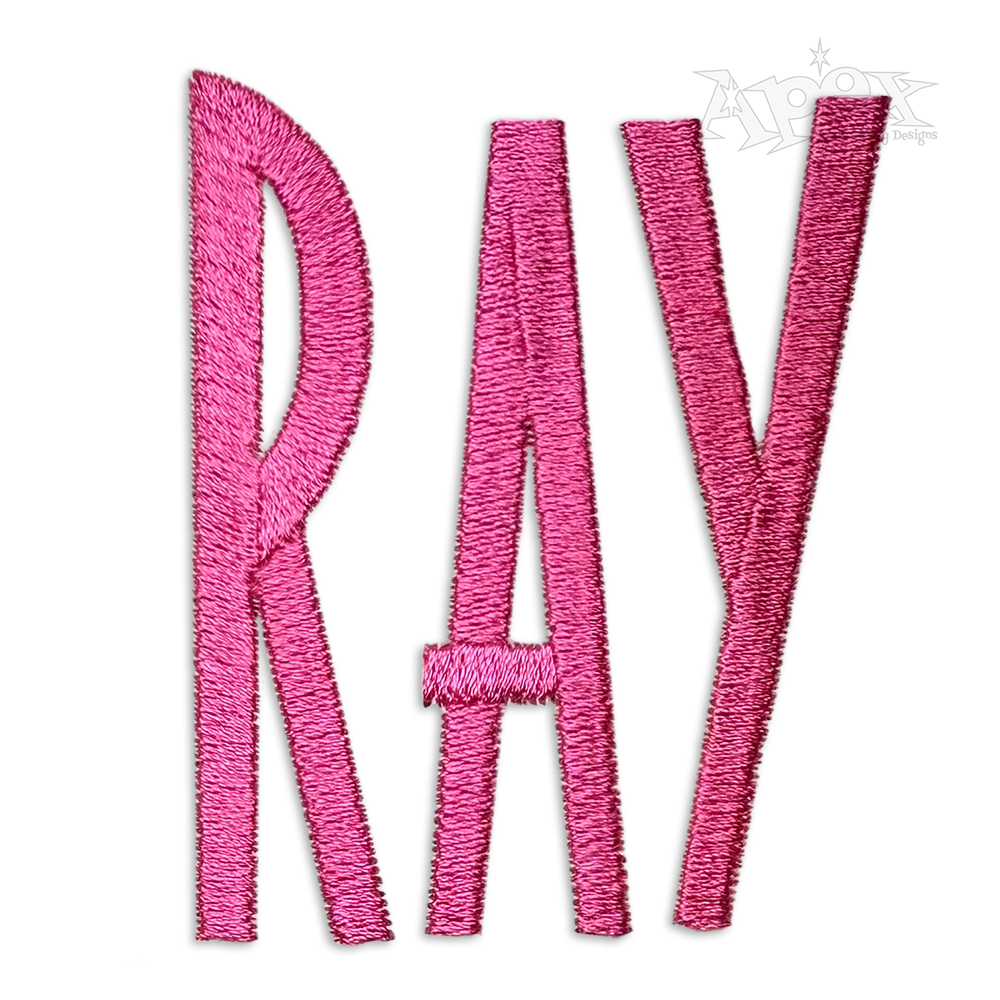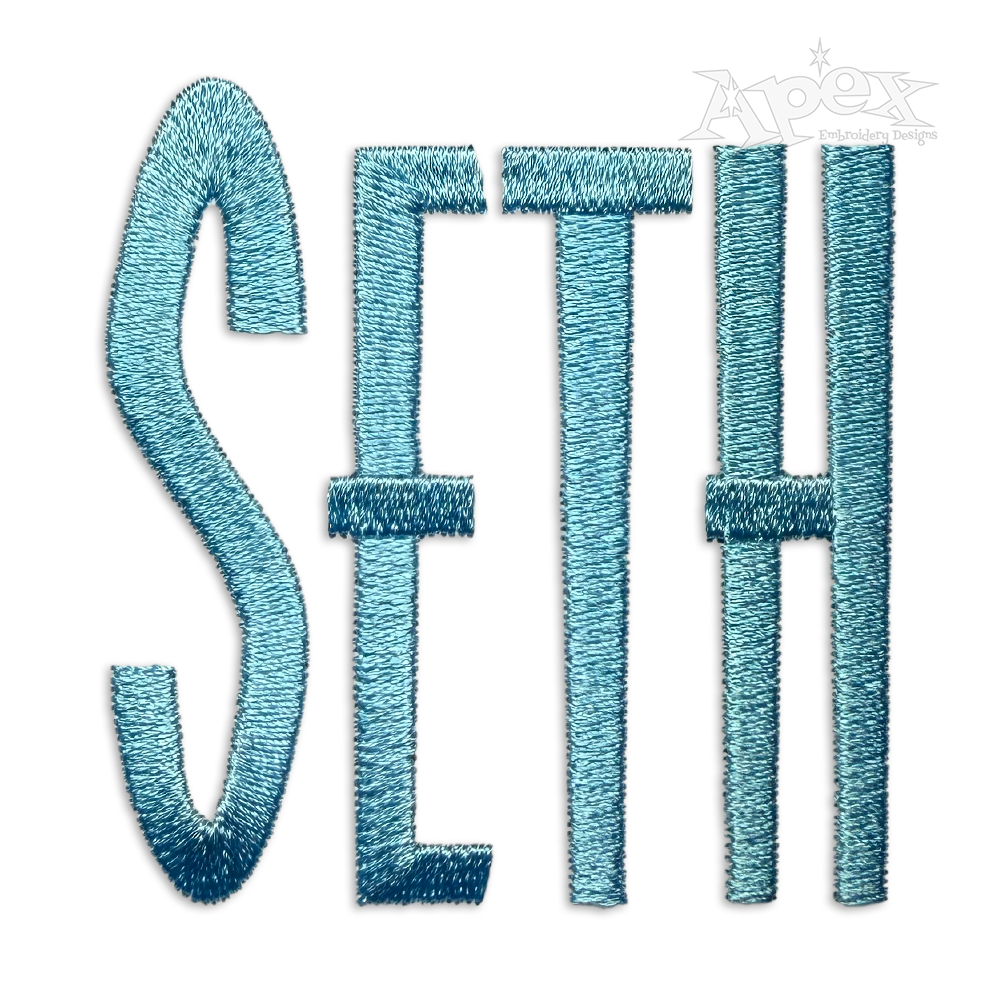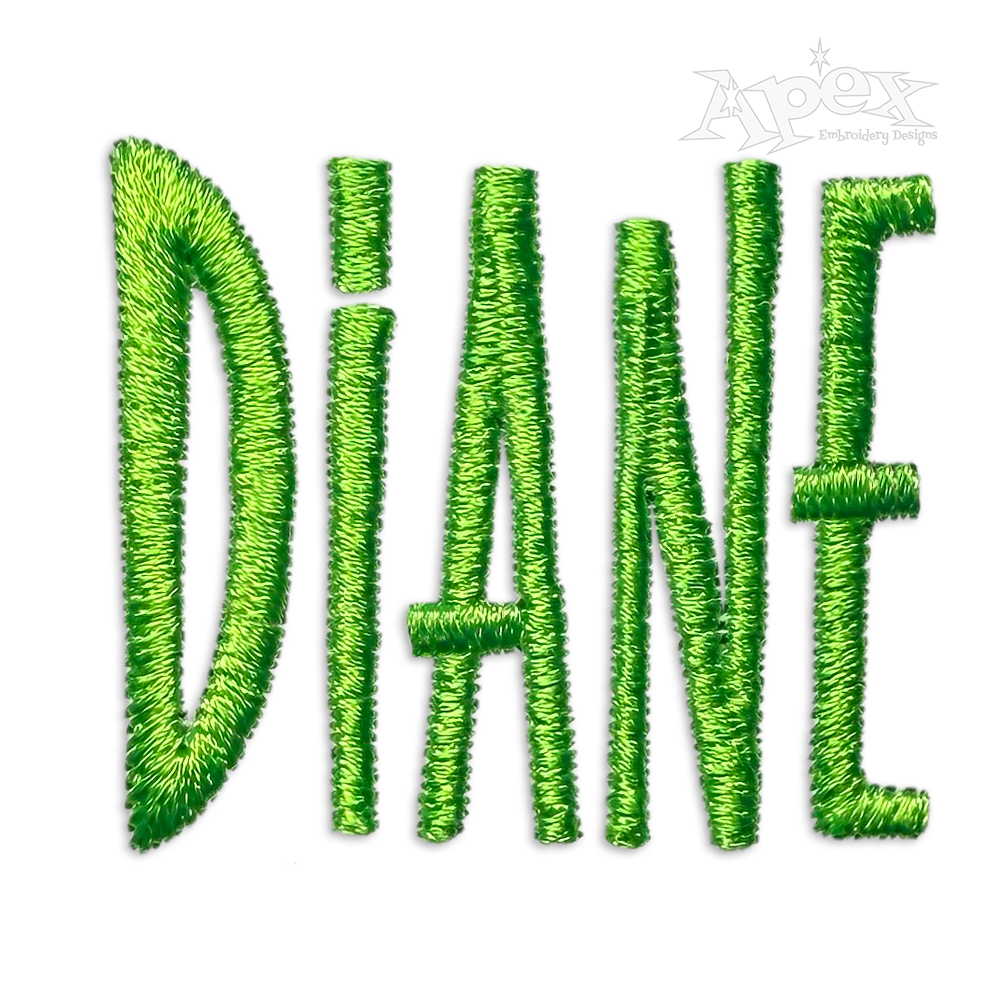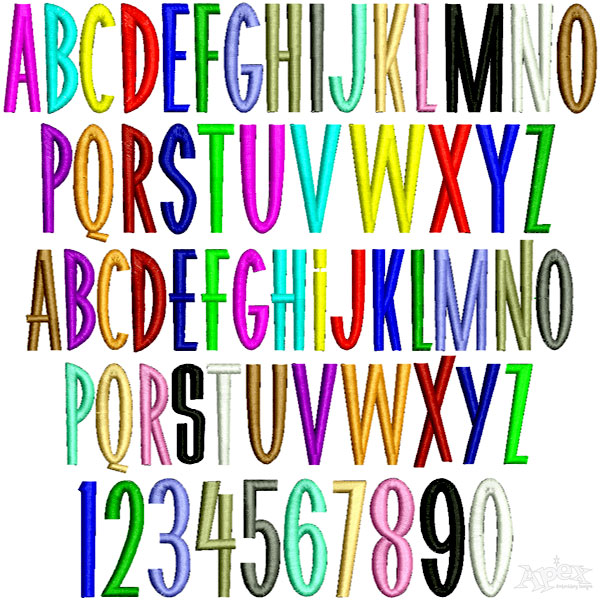
Adam Embroidery Font
There is an understated confidence in clean, architectural lettering—a quiet poise reminiscent of bespoke shirting, pressed crisp poplin, and timeless gentleman's accessories. We digitized the Adam Embroidery Font to bring that same tailored dignity to modern machine embroidery. Conceived as a versatile foundation for custom monogramming and heirloom gifting, each letterform commands the fabric with assertive lines softened by the luminous sheen of satin stitch columns. Whether framing a distinguished trio of initials on a canvas weekender or lending quiet luxury to tailored table linens, Adam stitches out with pristine clarity and enduring grace.
The Adam Embroidery Font is meticulously scaled into three versatile sizes to accommodate everything from delicate personalized accents to bold, striking statements:
- 1-Inch Set: Precision-scaled for refined placements, perfect for shirt cuffs, handkerchief corners, collar points, and small leatherette patches.
- 2-Inch Set: The essential all-rounder for luxury table linens, spa wraps, cosmetic cases, and mid-sized monogram arrangements.
- 3-Inch Set: A commanding focal size designed for center-chest motifs, structured tote bags, plush bath sheets, and heirloom nursery blankets.
Project Ideas for Adam Embroidery Font
Thanks to its balanced proportions and crisp readability, the Adam alphabet transitions effortlessly across a multitude of creative and commercial applications:
- Bespoke Menswear & Loungewear: Embroider tone-on-tone or contrasting monograms on crisp oxford cuffs, tailored pajama lapels, and waffle-weave bathrobes.
- Luxury Table Linens: Elevate hemstitched cocktail napkins, natural linen table runners, and dinner party placemats for elevated personalized entertaining.
- Heirloom Nursery Essentials: Create memorable baby gifts by personalizing pima cotton sleepsuits, cable-knit blankets, and keepsake decorative pillows.
- Travel & Resort Accessories: Add refined character to heavy canvas boat totes, duffel bags, bespoke resort wear, and golf towels.
- Personalized Gifting: Craft unforgettable wedding, anniversary, or graduation gifts with tailored initials stitched onto luxury cashmere throws or velvet dopp kits.
Achieving a professional finish relies on thoughtful positioning. Here are our artisan digitizer recommendations for placing the Adam font:
- Corner Diagonal: Angle single initials or three-letter monograms 1.5 to 2 inches from the bottom right corner of hemstitched napkins and fine pocket squares.
- Cuff & Collar: Position the 1-inch glyph centered a half-inch above the sleeve cuff hem or neatly nestled inside the collar stand for an authentic bespoke shirting aesthetic.
- Center Chest: Align the 2-inch or 3-inch letters across the center chest of sweatshirts, plush robes, or vests, keeping the design approximately 3 to 4 inches down from the neckline.
- Framed Border Accent: Pair the 2-inch sizing with linear border embroidery on throw pillows or guest hand towels for a balanced, architectural composition.
Adam Embroidery Font Craft & Letterform Details
Behind the clean silhouette of the Adam Embroidery Font lies an obsession with balance, tension, and thread dynamics. Too often, block and semi-structured alphabets suffer from harsh corner bunching or thin, uneven satin stitch density when scaled. To avoid this, every corner turn in the Adam alphabet has been manually plotted with radial stitch inclination, allowing the thread to catch the light seamlessly around each bend.
We engineered the underlay foundation specifically to lift and cushion the top satin columns, preventing thread sinkage even on textured textiles like waffle weave, terrycloth, and open-weave linen. The vertical stems feature calculated pull compensation to ensure razor-sharp edges and straight lines that sew out true to form without skewing. It is this dedication to master digitizing that makes Adam not just a font, but a timeless, hardworking staple in your embroidery collection.